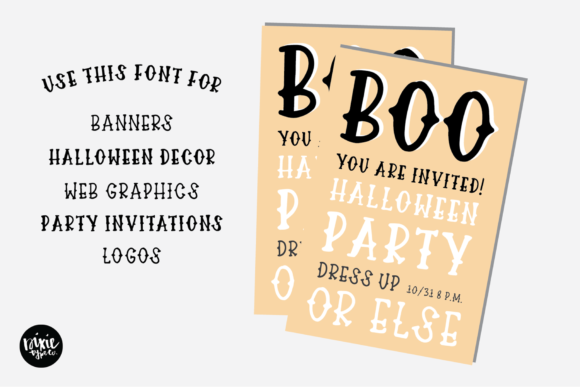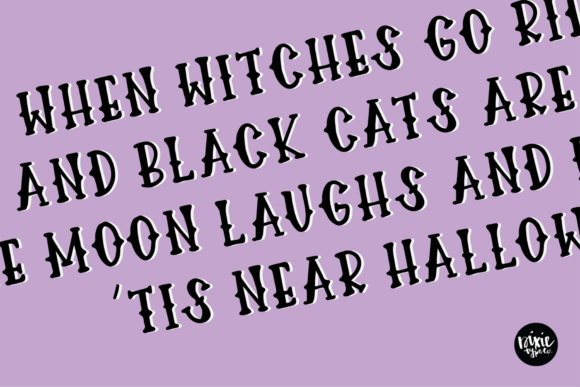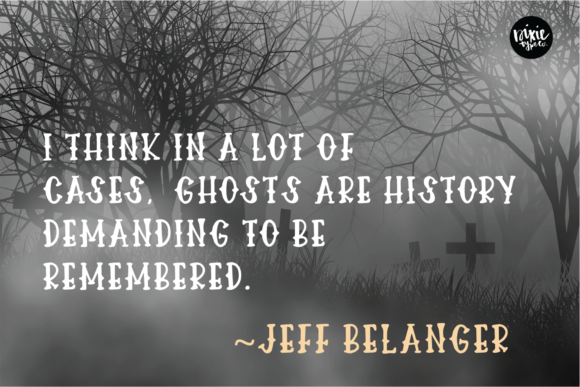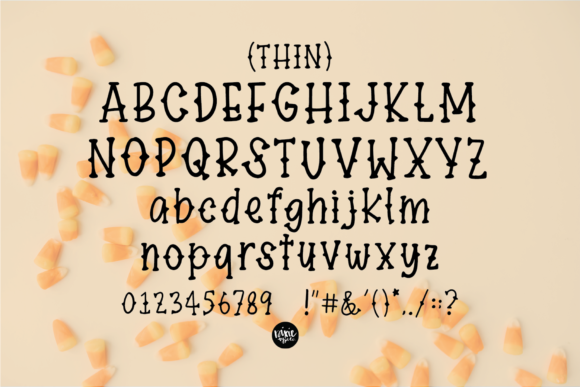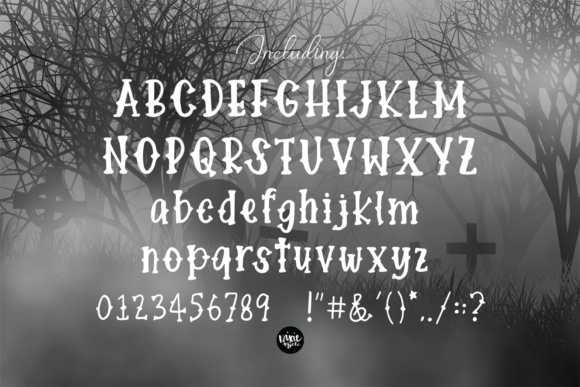
Unleash the Spookiness: Discover the Definitely Haunted Font
As the spookiest time of the year approaches, designers and crafters are on the lookout for unique and eye-catching elements to add to their Halloween-themed projects. If you’re looking to create a hauntingly beautiful design, look no further than the Definitely Haunted font. This incredibly unique and interesting display font is sure to make your creative ideas stand out from the crowd.
What is Definitely Haunted Font?
Definitely Haunted is a display font designed to evoke the spirit of Halloween. With its eerie and playful vibe, this font is perfect for creating spooky and eye-catching designs. The font features bold, irregular shapes and a distinctive texture that gives it a hauntingly beautiful appearance. Whether you’re designing a Halloween-themed poster, invitation, or social media graphic, Definitely Haunted is sure to add a touch of spookiness to your project.
Why Use Definitely Haunted Font?
So, why choose Definitely Haunted font for your Halloween-themed designs? Here are just a few reasons why this font stands out:
- Unique and eye-catching: Definitely Haunted font is unlike any other font out there. Its bold, irregular shapes and distinctive texture make it a standout choice for designers looking to create something truly unique.
- Perfect for Halloween: This font is specifically designed with Halloween in mind. Its spooky and playful vibe makes it perfect for creating designs that are both eerie and fun.
- Versatile: Definitely Haunted font can be used for a wide range of design projects, from posters and invitations to social media graphics and more.
How to Use Definitely Haunted Font?
Using Definitely Haunted font is easy. Here are a few tips to get you started:
- Pair it with other fonts: Definitely Haunted font pairs well with other fonts, such as sans-serif fonts like Arial or Helvetica. Experiment with different font combinations to find the perfect look for your design.
- Use it for headlines: This font is perfect for headlines and titles, where its bold and eye-catching appearance can really make an impact.
- Add some texture: Consider adding some texture to your design to really make the font pop. This could include images, patterns, or other design elements that add depth and interest.
Design Ideas Using Definitely Haunted Font
So, what can you create with Definitely Haunted font? Here are a few design ideas to get you started:
- Halloween party invitations: Create spooky and eye-catching invitations for your Halloween party using Definitely Haunted font.
- Poster designs: Design a hauntingly beautiful poster for your Halloween-themed event or promotion.
- Social media graphics: Create spooky and engaging social media graphics using Definitely Haunted font.
- Craft projects: Use Definitely Haunted font to add a touch of spookiness to your craft projects, such as Halloween-themed cards, gift tags, or decorations.
| Author | blushfontco |
Definitely Haunted font is an incredibly unique and interesting display font that’s perfect for adding a touch of spookiness to your Halloween-themed designs. With its bold, irregular shapes and distinctive texture, this font is sure to make your creative ideas stand out from the crowd. Whether you’re a designer or crafter, Definitely Haunted font is a must-have for any Halloween-themed project. So why wait? Download Definitely Haunted font today and start creating your own hauntingly beautiful designs!